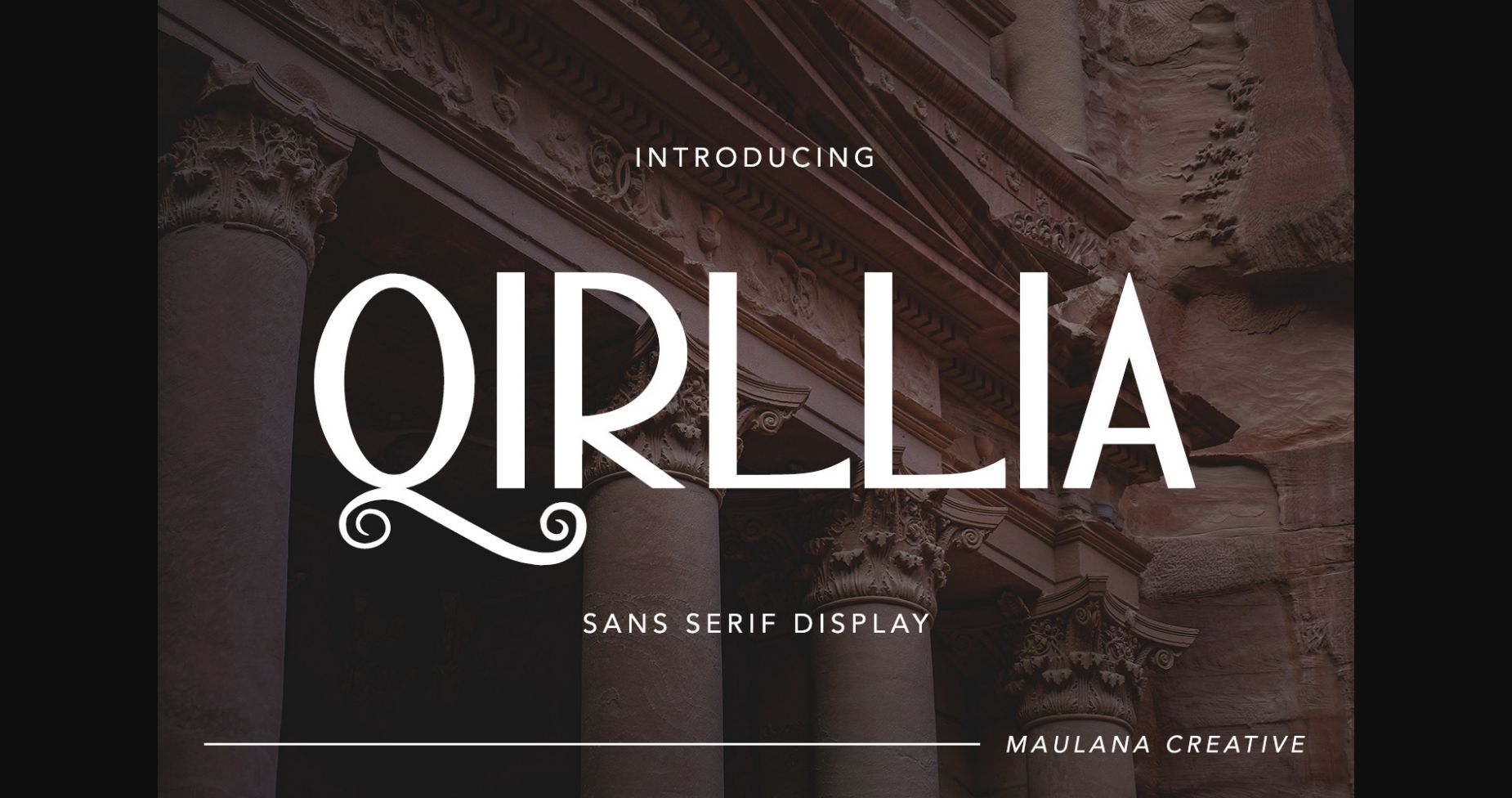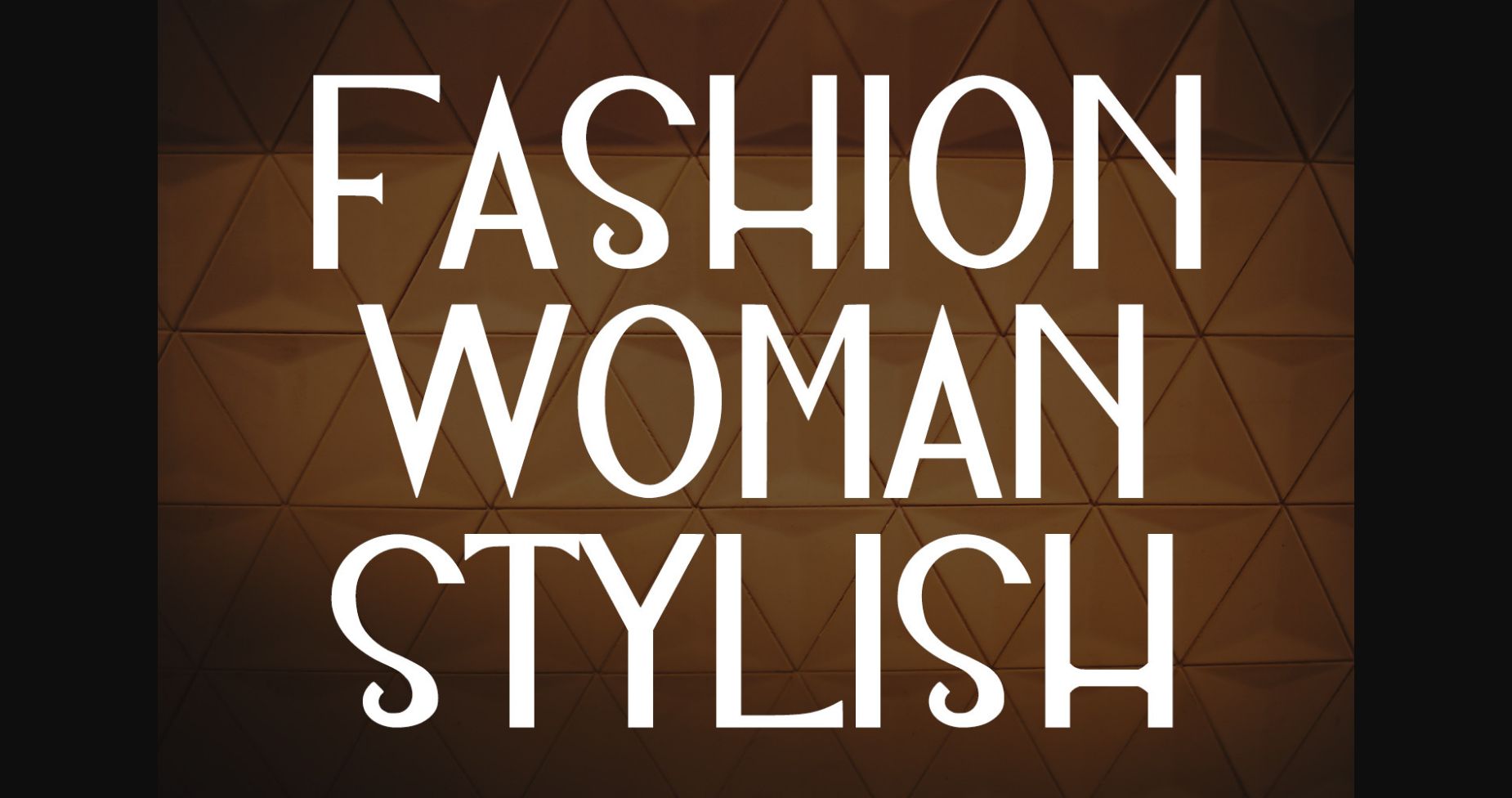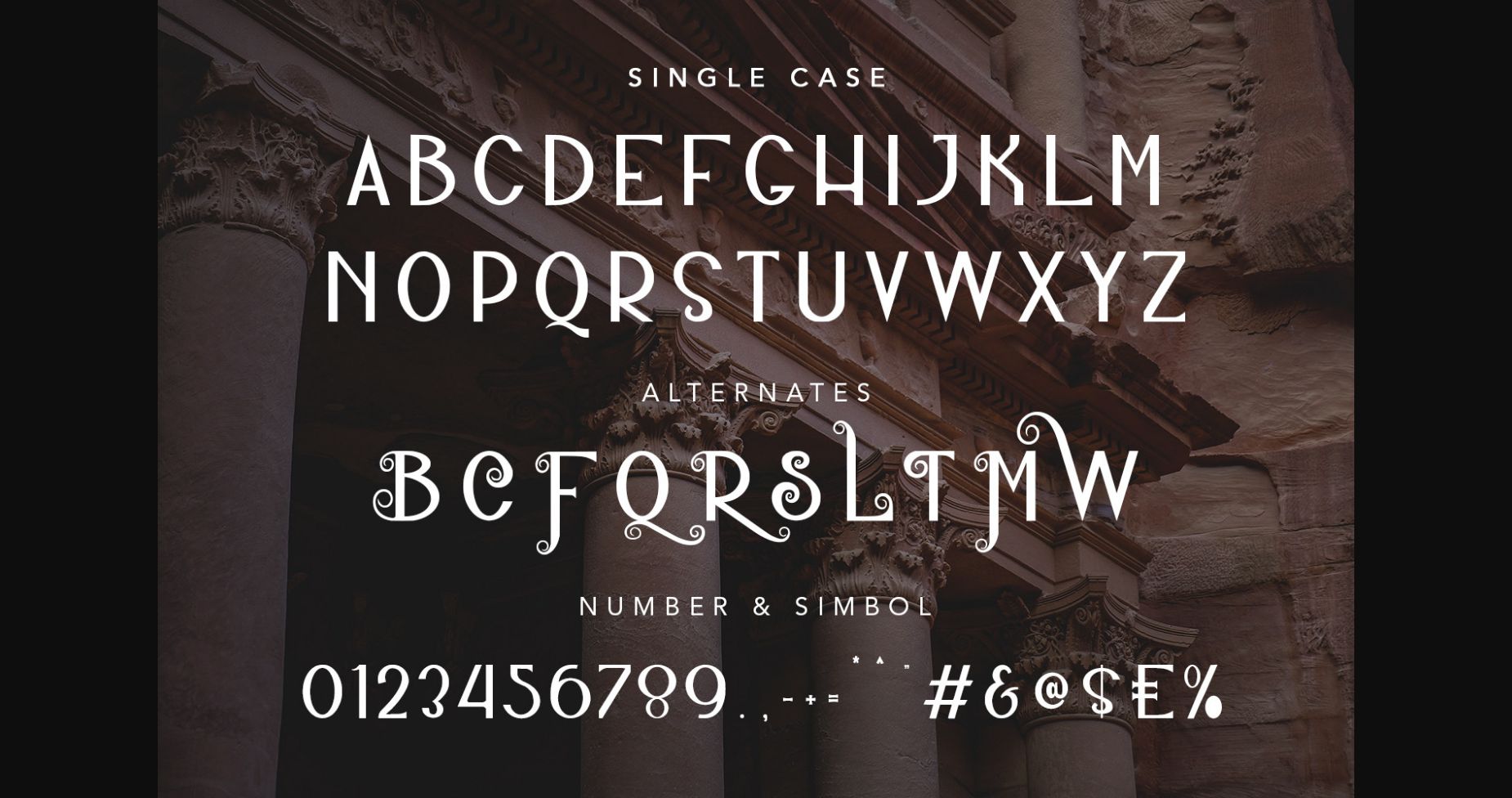
About Qirllia Font
Qirllia is a modern Decorative Display font. Bold strokes, fun character with a bit of ligature and alternates. This font is good for logo design, Social media, Movie Titles, Books Titles, short text even long text letters, and good for your secondary text font with script or serif. Make stunning work with Qirllia font.